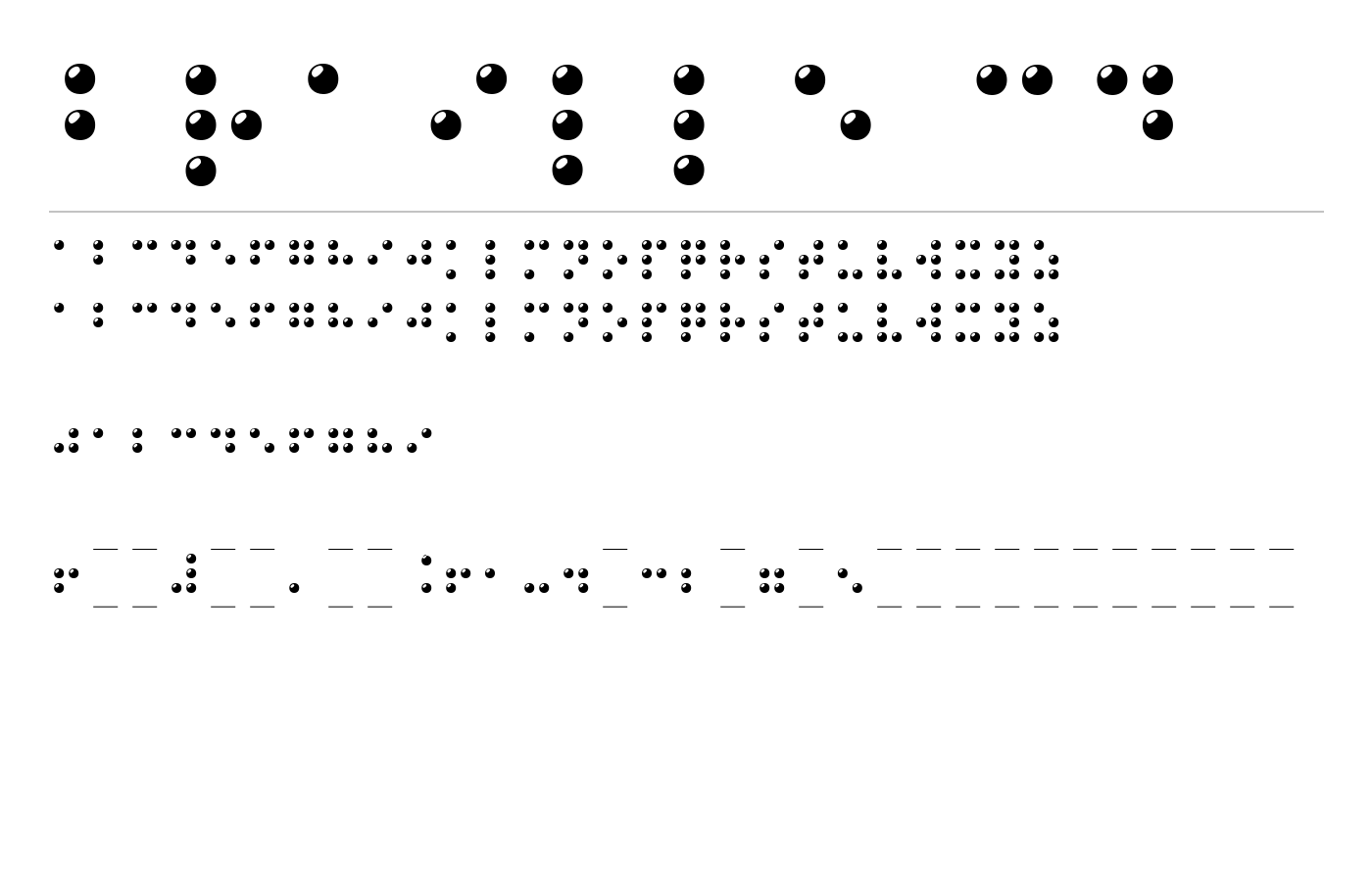
Braille Normal Font is a unique, tactile-based sans serif typeface designed with distinct round dots arranged in traditional Braille cell patterns. Its clean, uniform spacing and dot shapes create an accessible and modern feel, perfectly suited for inclusive communication design and educational materials. This font works best in projects focused on accessibility, awareness, or where the tactile nature of Braille needs to be visually represented.
Braille Normal Font
About Braille Normal Font